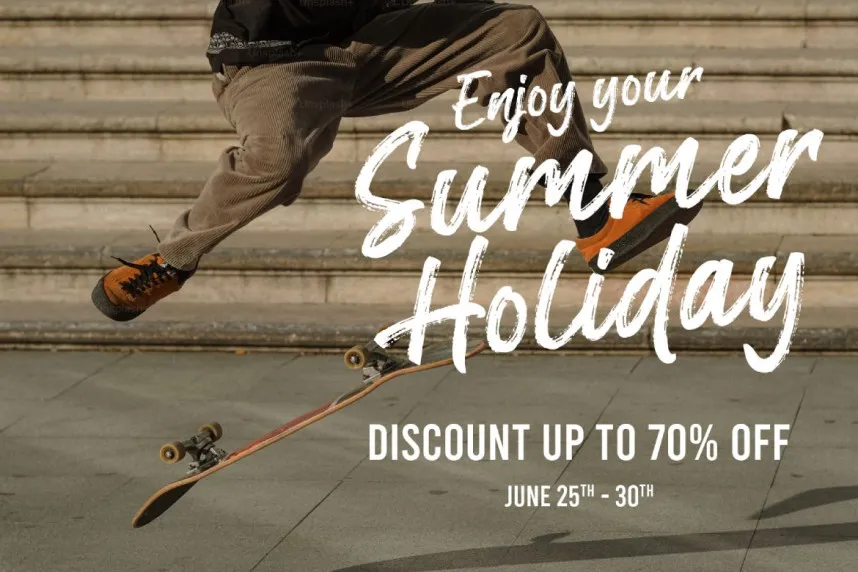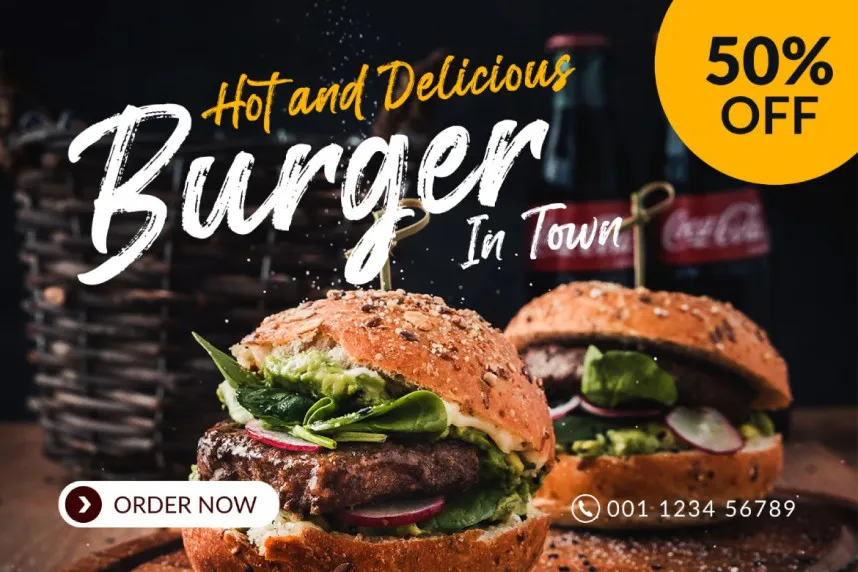
Brush Haven Font is bold, expressive, and full of hand-painted energy. It gives your designs a raw artistic edge that demands attention.
Every stroke looks like it came from a real brush, creating a natural texture that feels alive and spontaneous. It’s creative and fearless.
The imperfect lines and unique movement make each word a piece of art. It fits beautifully in posters, apparel, and branding.
Brush Haven typeface is perfect for projects that need intensity and emotion. It shouts personality through every curve and splash.
Designers use it to make strong visual statements and dynamic compositions. It captures creativity in motion.
Type Brush Script
It brings the spirit of freedom, passion, and artistry, turning words into bold visual expression.